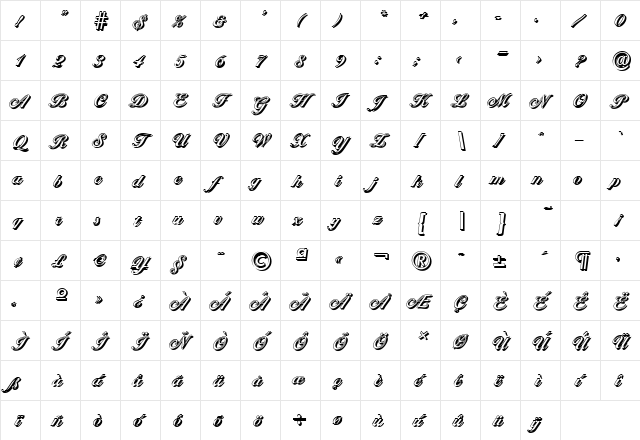
Complete NicholasBeckerShadow Bold glyph index. Displaying only characters natively supported by NicholasBeckerShadow Bold font.
NicholasBeckerShadow is built around its visual character rather than neutral utility - its distinctive forms are designed to make an impression at display sizes. Its bold stroke weight gives it real presence on the page.
Font Pairing: Pair with a clean neutral sans-serif for body copy to let NicholasBeckerShadow's character lead without overwhelming the composition.
Pro Tip: Use NicholasBeckerShadow exclusively at display sizes - it was designed to be seen, not read at length. Let a neutral companion handle body copy.